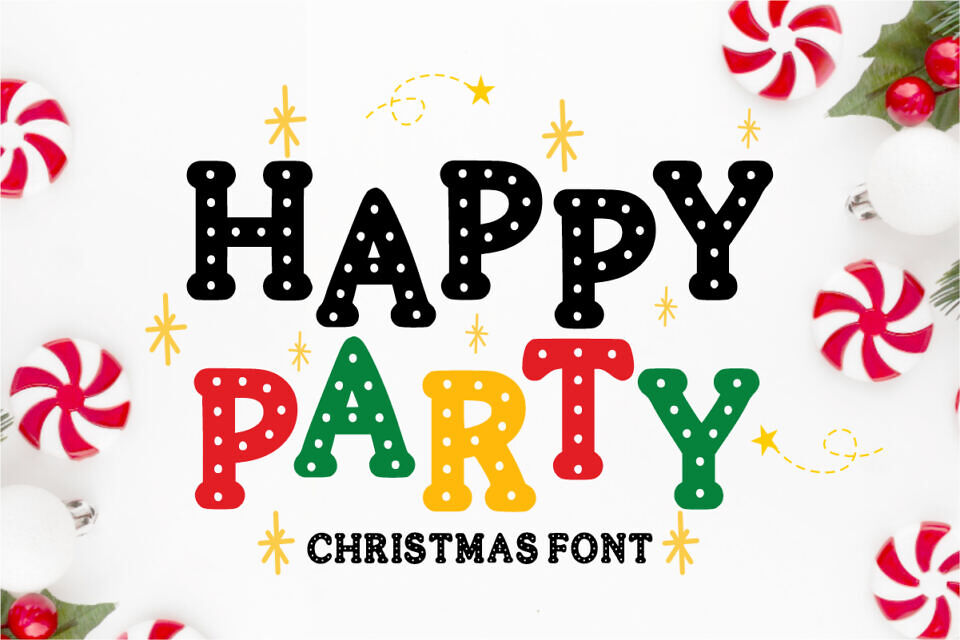
Introducing “Christ Party,” a cheerful and modern Christmas decoration font. As a thank you, we’re giving this font away FREE to all “Taralart” followers!
Perfect for Christmas logos, Christmas books, Christmas comics, Christmas invitations, Christmas stickers, Christmas crafts, kids’ t-shirts, and more. Whatever your theme, this font will be a valuable addition to your font library, as it has the potential to enhance any creation. Let your imagination run wild!